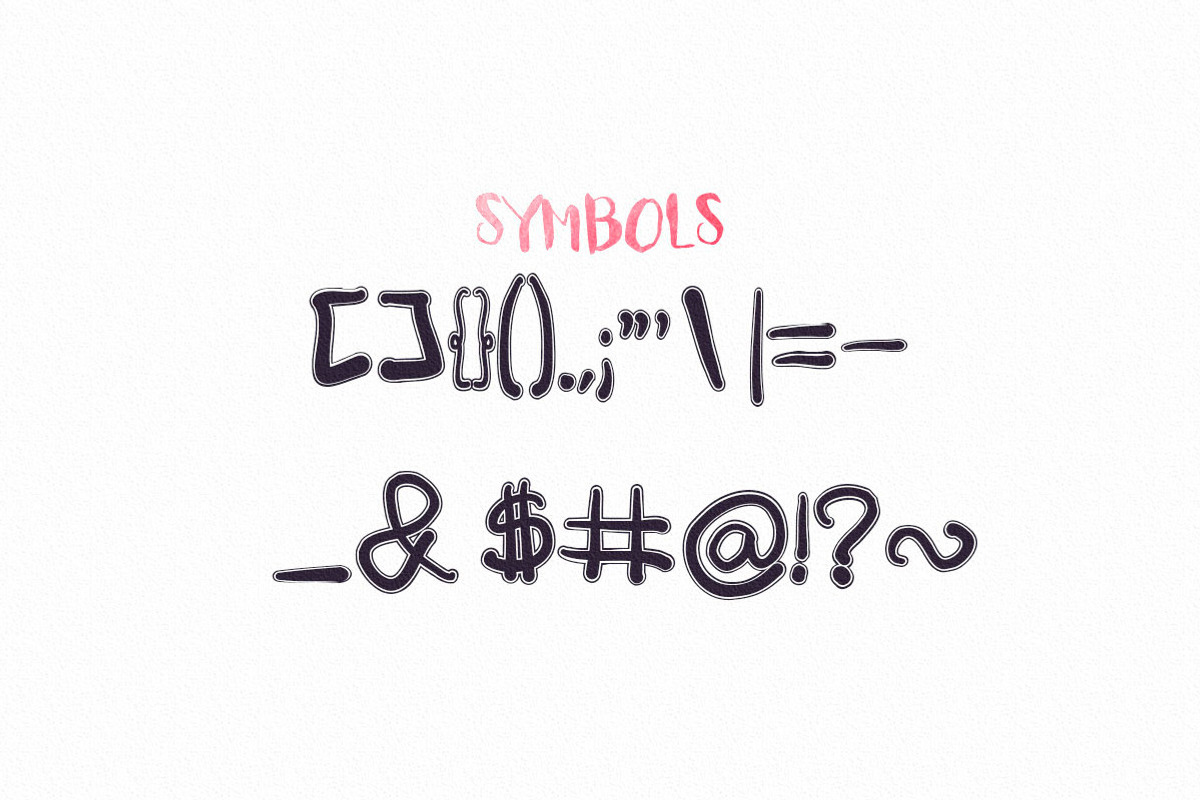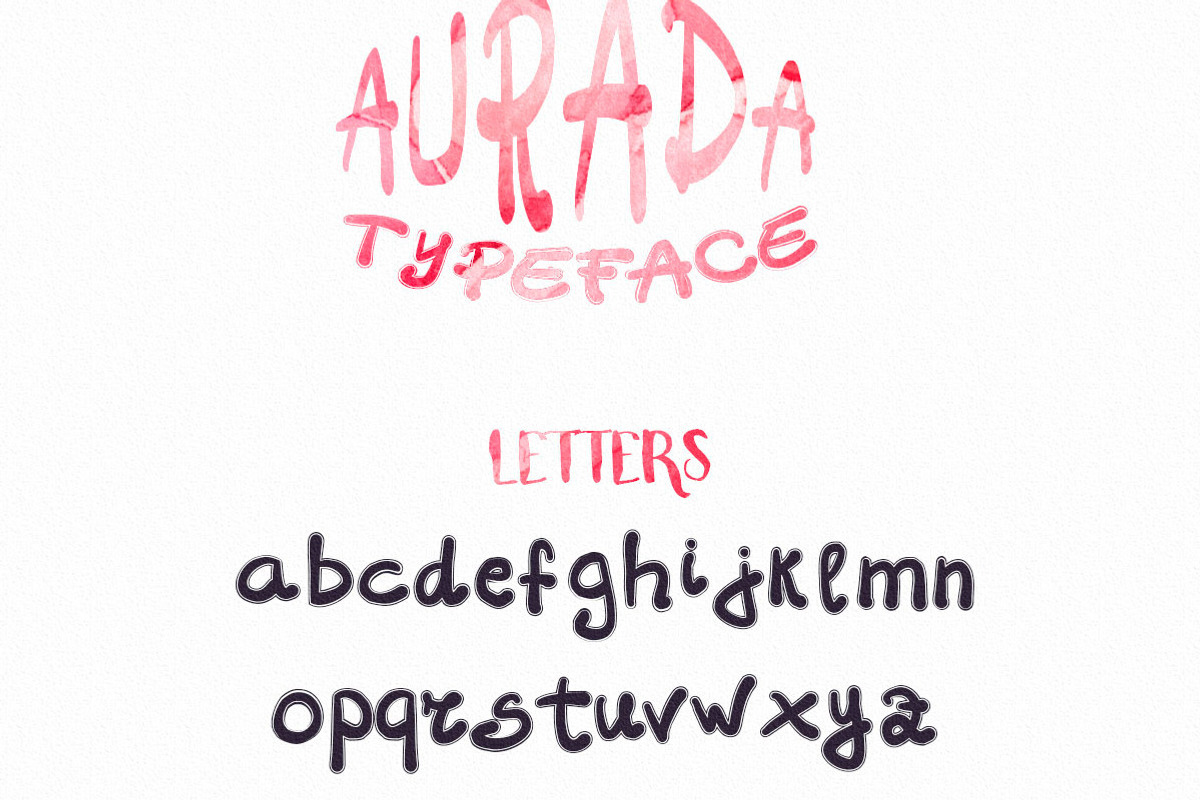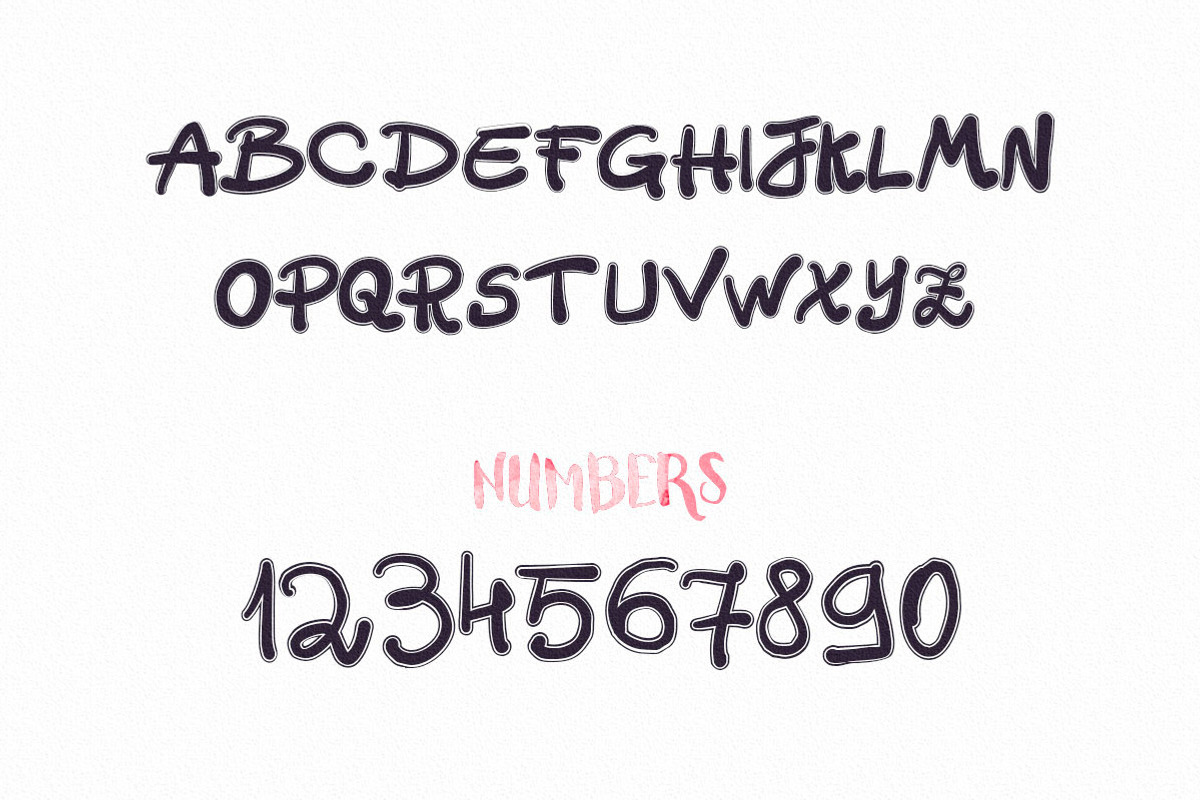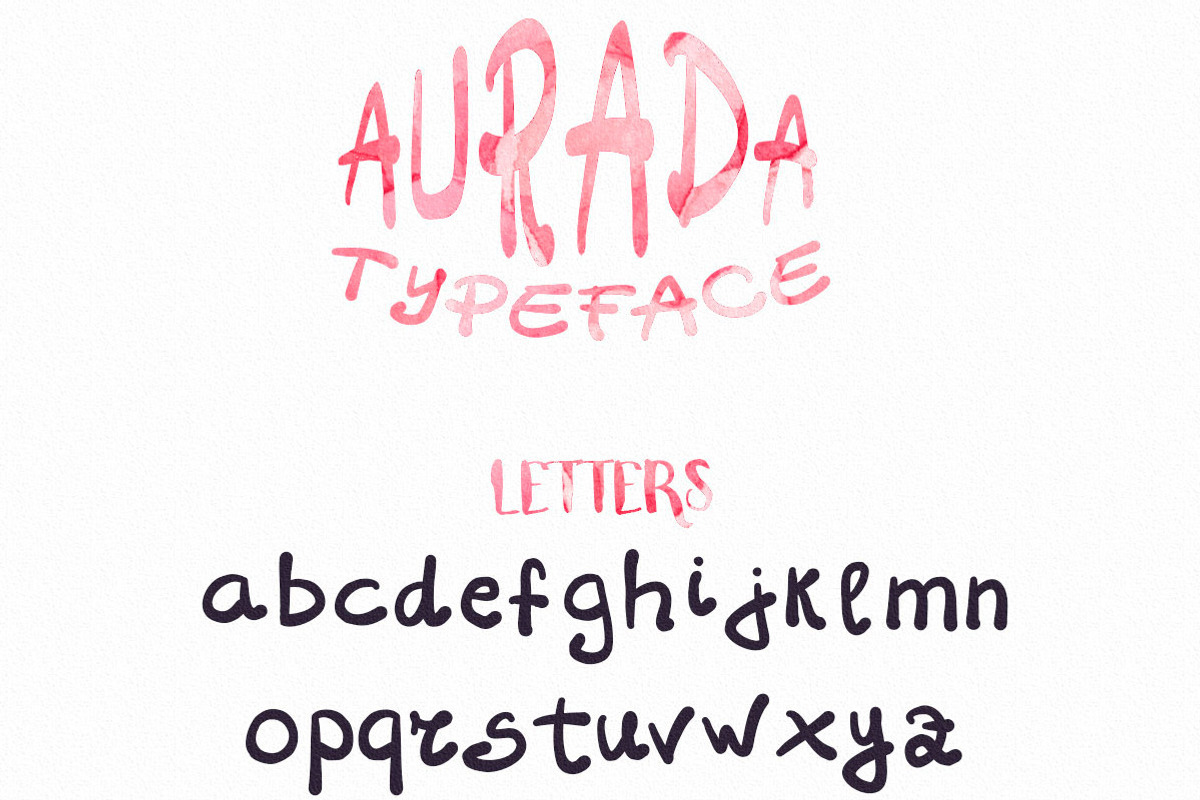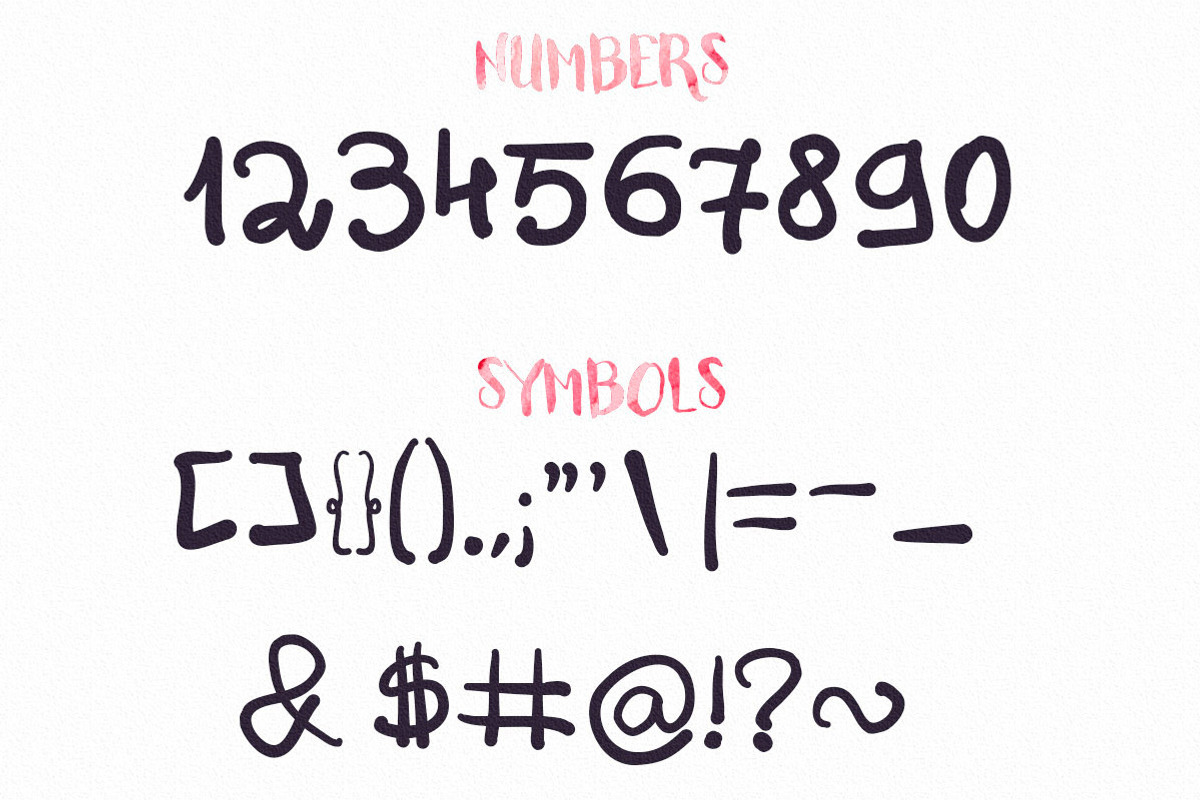
Watercolor Kit Styles + Typeface
Say hello to "TANTRUM"! A bold handmade lettered Font that comes with a Huge Bonus Artsy Kit to help you create lovely greeting cards, invitations, logos, posters, and so much more in just a few clicks! You have everything you need in one product! :D
You also get one Bonus font: Aurada!
The:
- "Tantrum Typeface" comes with alternate upper and lowercase characters.
- "Aurada Typeface" comes with alternate upper and lowercase contoured characters.
You want to see how the "Tantrum" font looks in a design? Of course! Click on Photo NR.2 to get some inspiration on how you could use "Tantrum" and most of the Bonus Goods too ! :D
Fonts included:
- Tantrum Typeface
- Tantrum Alternate Typeface (you can use, or not use this font, I was just playing around a bit with the height of the letters, the uppercase letters came out the best)
- Aurada Typeface
- Aurada Contoured Typeface (alternate contoured typeface)